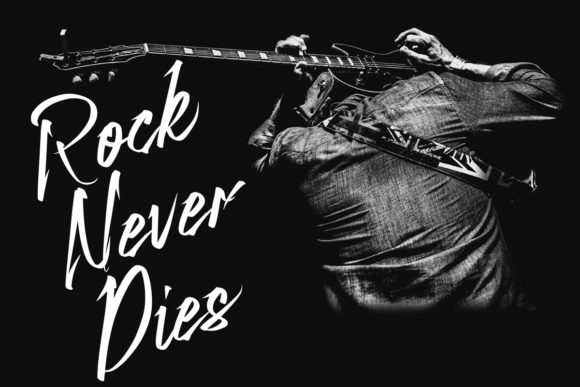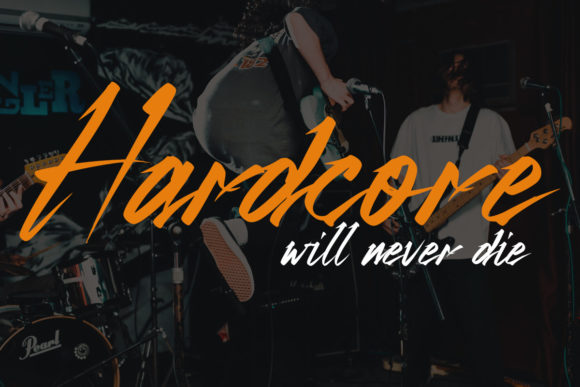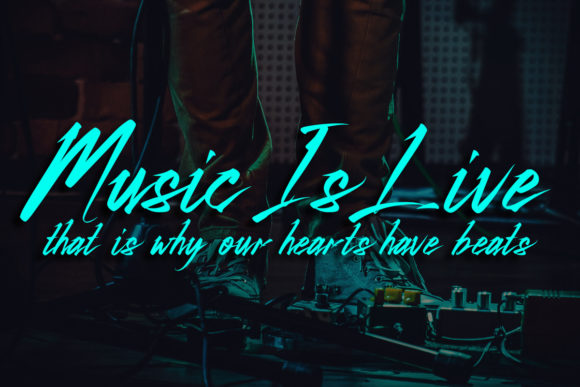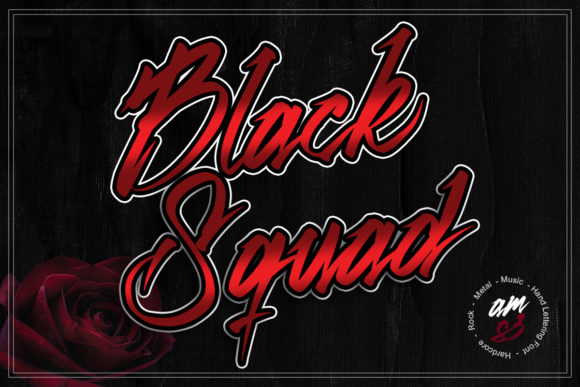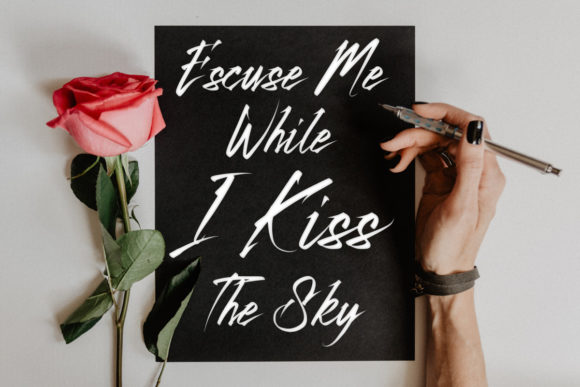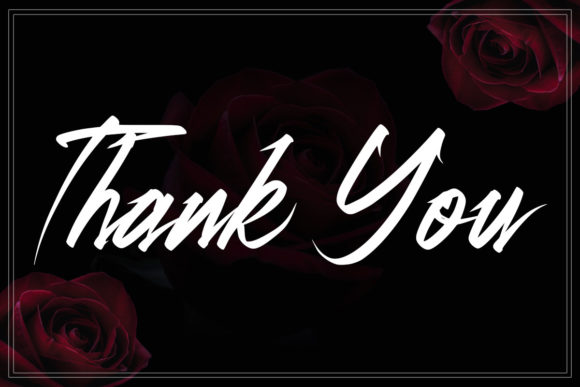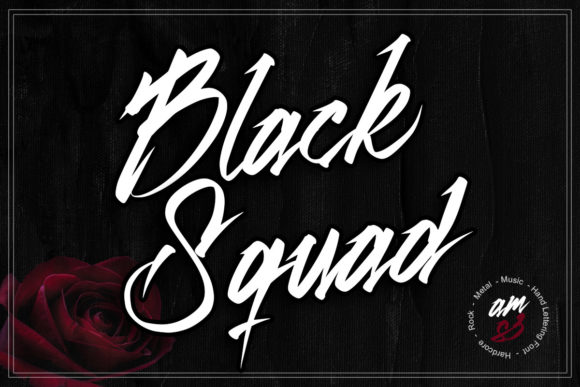
Unleash the Power of Black Squad Font: The Ultimate Choice for Metal and Rock Designs
Are you a designer or crafter looking for a font that embodies the spirit of rock, metal, hardcore, death metal, and black metal music? Look no further than the Black Squad Font. This script font is specifically designed for those who want to create bold and striking designs that reflect the intensity and energy of these music genres. In this article, we’ll explore the features and benefits of Black Squad Font, and how it can elevate your designs to the next level.
What is Black Squad Font?
Black Squad Font is a script font that is carefully crafted to capture the essence of rock, metal, hardcore, death metal, and black metal music. Its sharp and bold style makes it perfect for creating eye-catching designs that demand attention. The font’s symmetrical design ensures that it looks great in a variety of applications, from album covers to merchandise, and even digital media.
Key Features of Black Squad Font
- Sharp and Bold Style: Black Squad Font features a sharp and bold style that is perfect for creating striking designs that reflect the intensity of rock and metal music.
- Symmetrical Design: The font’s symmetrical design ensures that it looks great in a variety of applications, from album covers to merchandise, and even digital media.
- Script Font: Black Squad Font is a script font that is designed to add a touch of personality and style to your designs.
- Multipurpose: This font is not limited to music designs; it can be used for a variety of other themed designs, such as posters, flyers, and even digital media.
Benefits of Using Black Squad Font
So, why should you choose Black Squad Font for your designs? Here are just a few benefits of using this powerful font:
- Instant Recognition: The bold and sharp style of Black Squad Font ensures that your designs will grab attention and leave a lasting impression.
- Versatility: Black Squad Font can be used in a variety of applications, from print to digital media, making it a versatile addition to your design toolkit.
- Easy to Read: Despite its bold style, Black Squad Font is easy to read, making it perfect for designs that require a clear and concise message.
- Unique Style: Black Squad Font has a unique style that sets it apart from other fonts, ensuring that your designs will stand out from the crowd.
Endless Possibilities with Black Squad Font
With Black Squad Font, the possibilities are endless. Here are just a few ideas to get you started:
- Music Album Covers: Use Black Squad Font to create striking album covers that reflect the intensity and energy of rock and metal music.
- Merchandise: Create eye-catching merchandise, such as t-shirts, posters, and stickers, that showcase your favorite band or music genre.
- Digital Media: Use Black Squad Font to create bold and striking digital media, such as social media graphics, videos, and even website headers.
- Posters and Flyers: Create striking posters and flyers that grab attention and leave a lasting impression.
In conclusion, Black Squad Font is a powerful script font that is specifically designed for rock, metal, hardcore, death metal, and black metal music designs. Its sharp and bold style, symmetrical design, and multipurpose features make it the perfect choice for designers and crafters who want to create striking designs that reflect the intensity and energy of these music genres. With Black Squad Font, the possibilities are endless, and we can’t wait to see what you create!